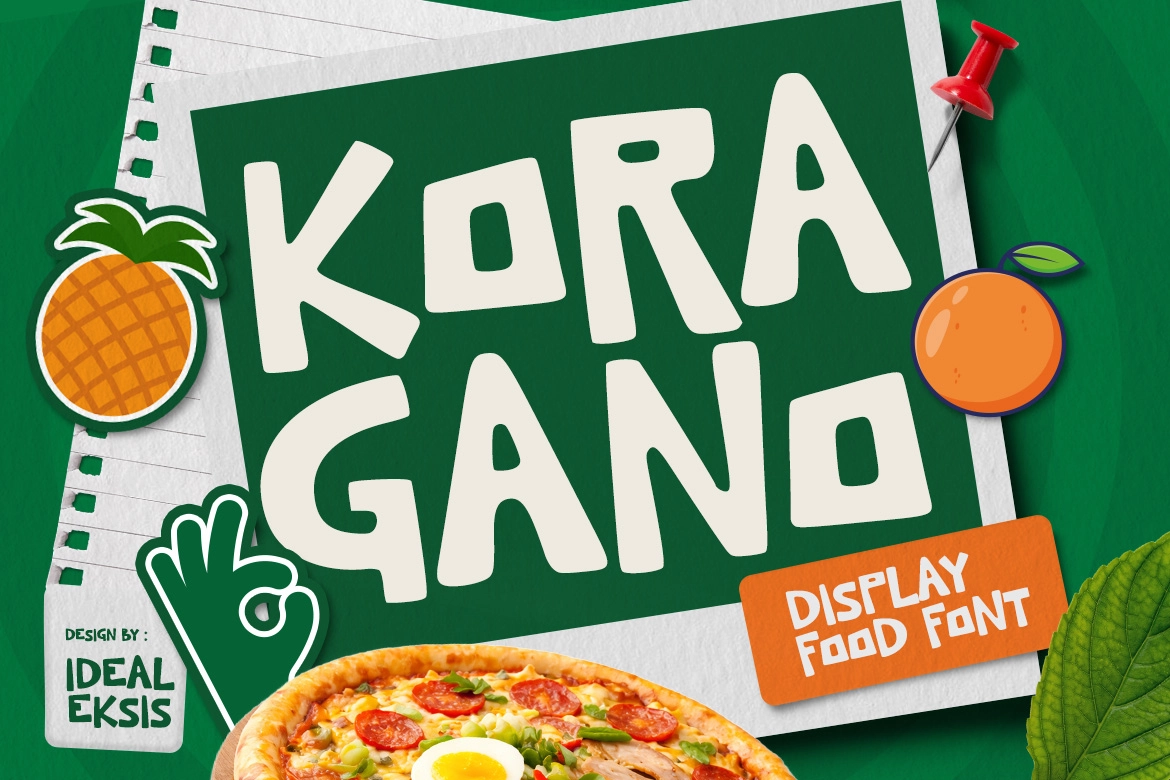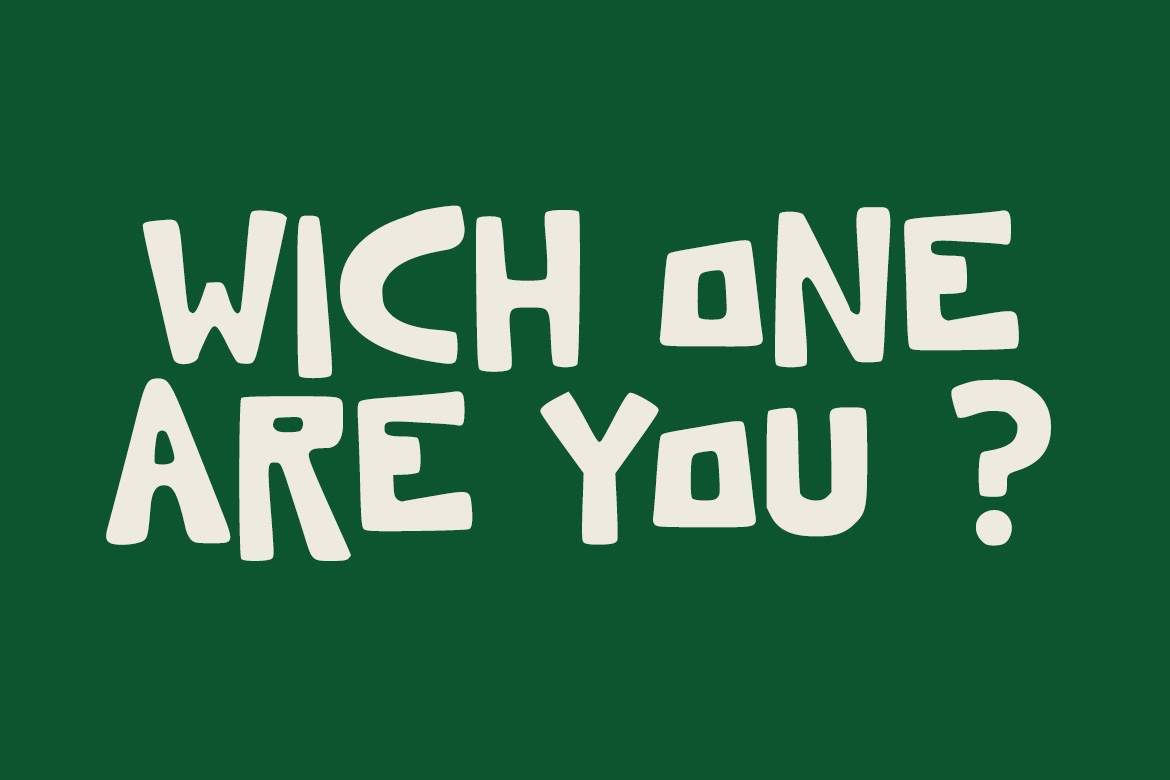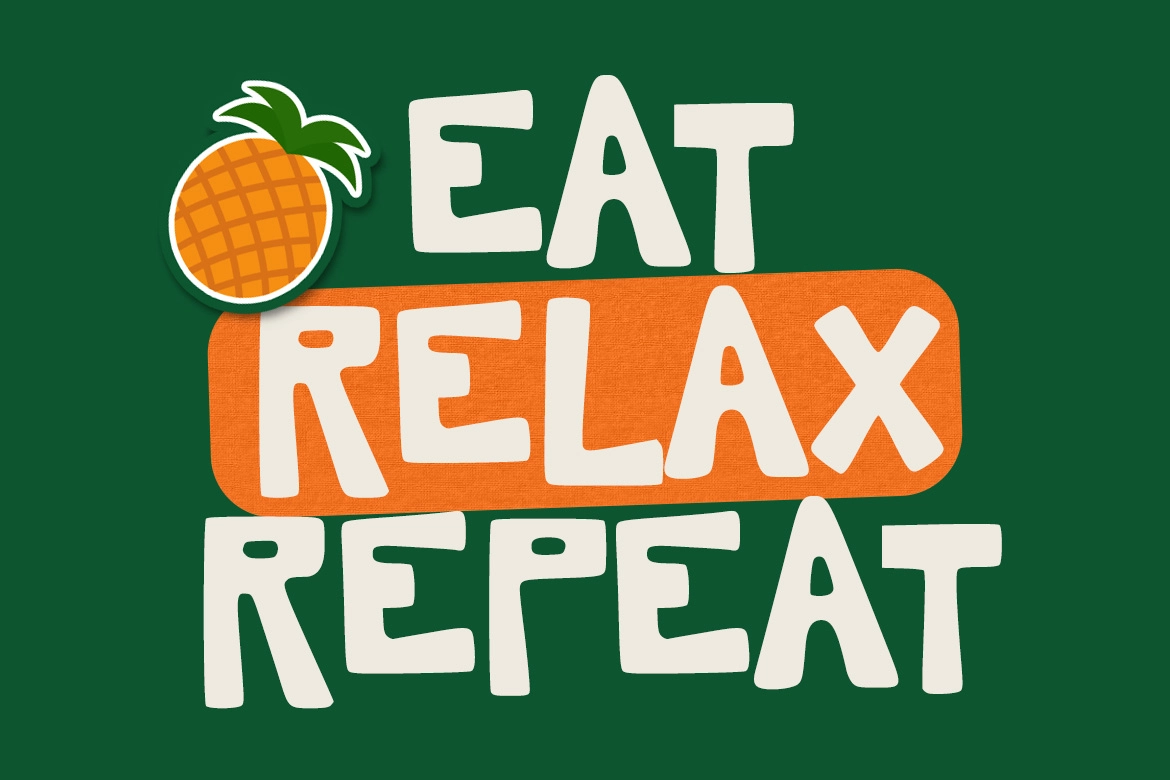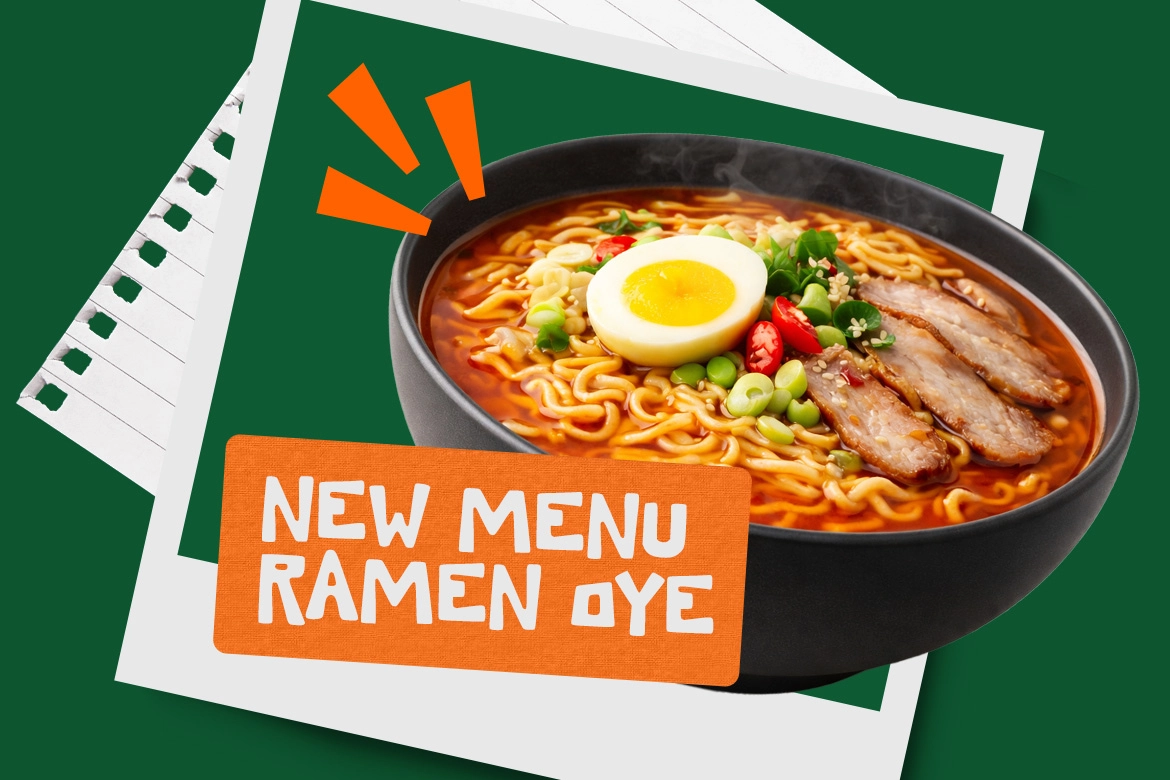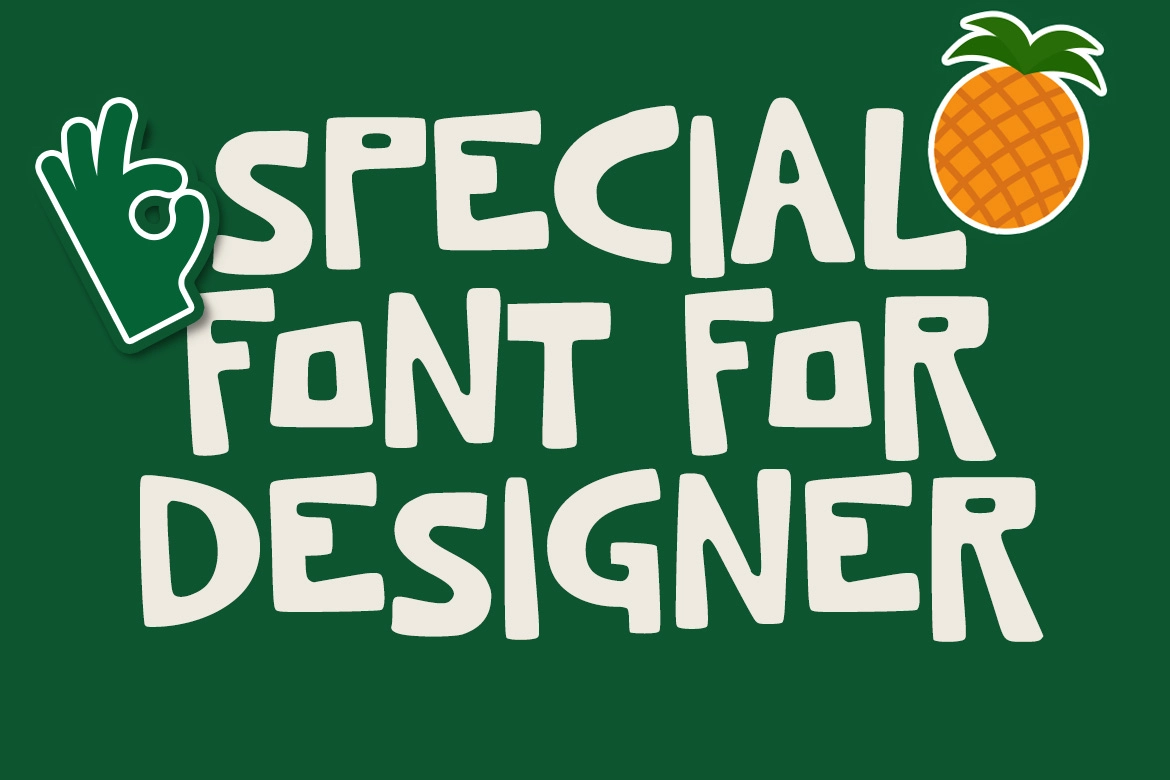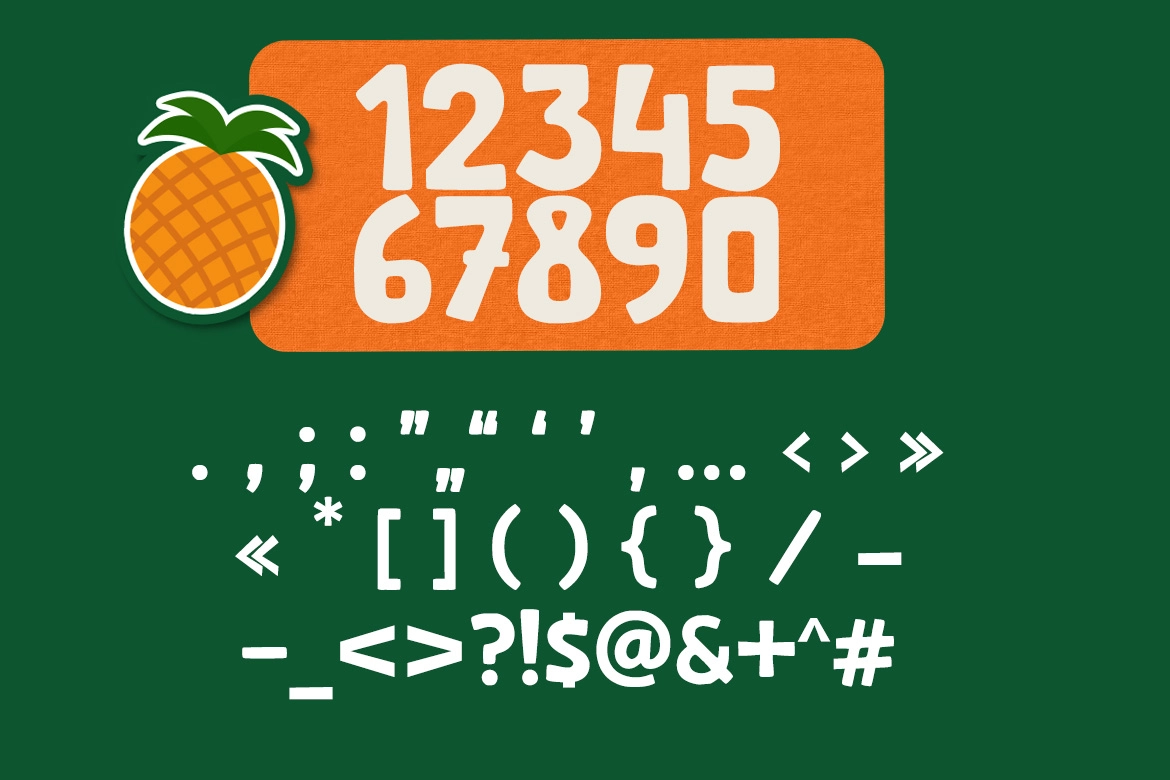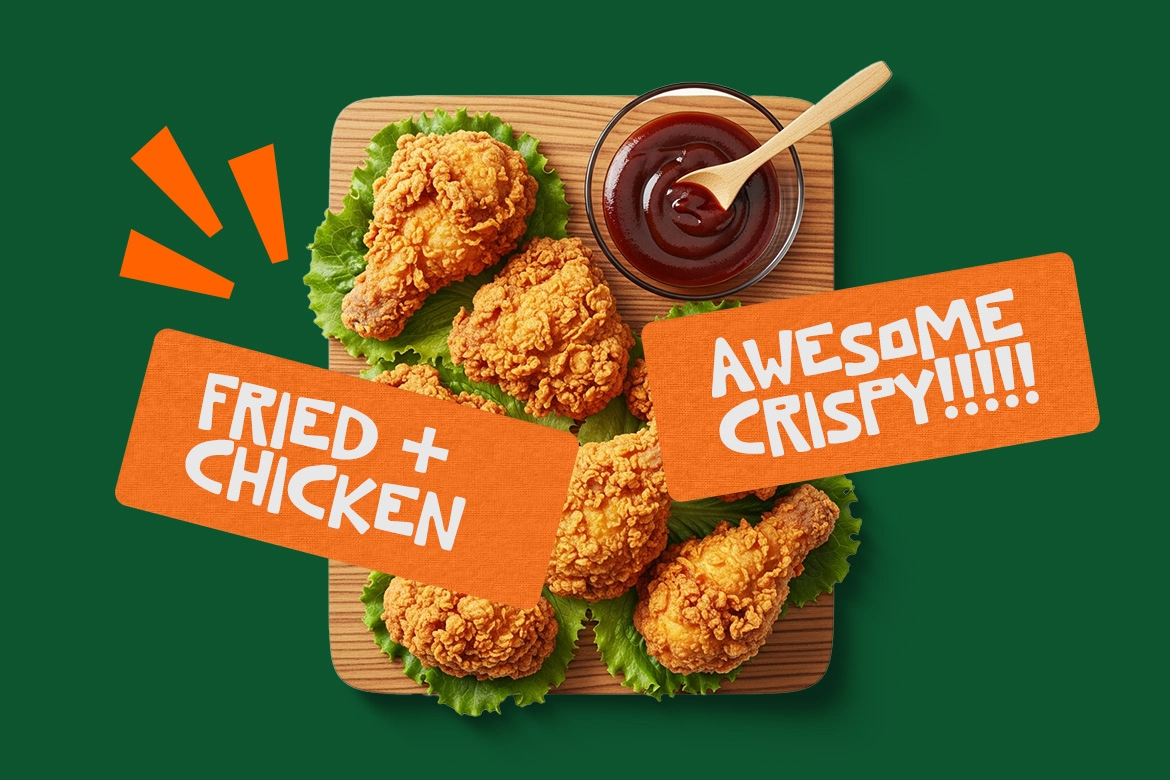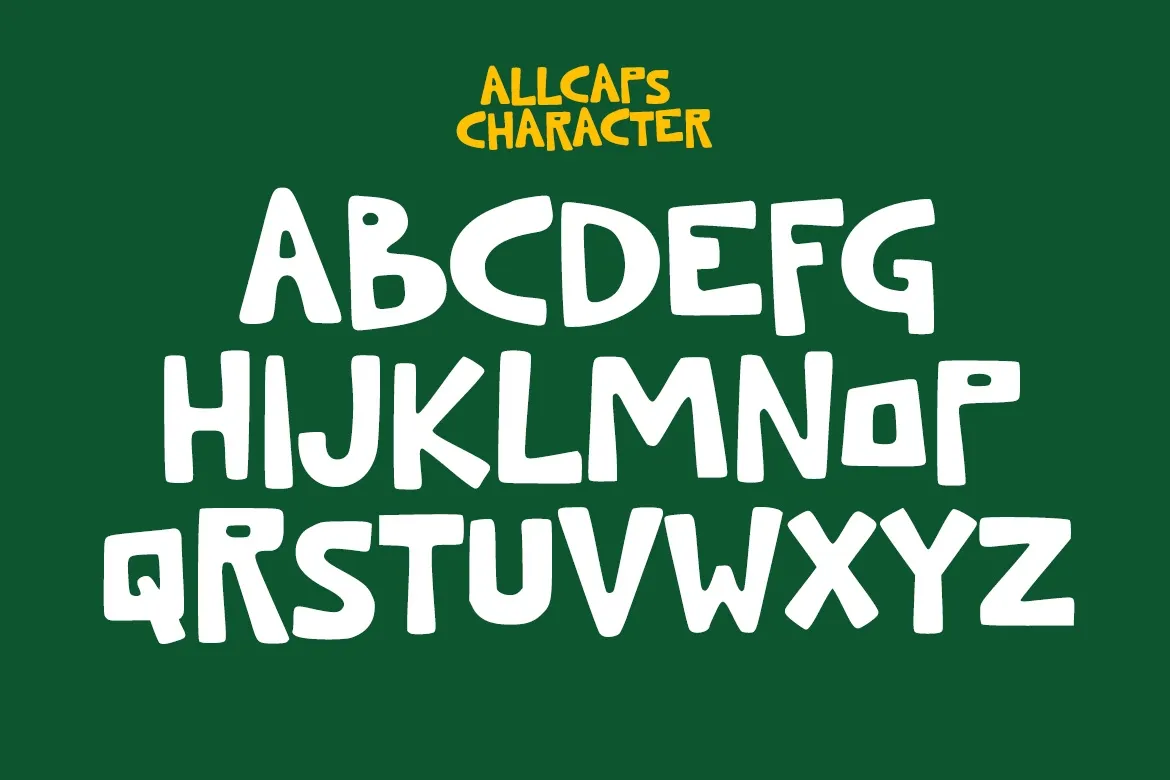
Kora Gano - Cute Display Font
Kora Gano - Cute Display Font is a playful and quirky typeface designed to bring warmth, charm, and personality into your creative projects. With its bold rounded shapes and slightly irregular letterforms, it captures the essence of hand-drawn cartoon style while maintaining a clean and friendly look.
Each character is crafted with soft edges and a lively rhythm, creating a fun and approachable visual tone. The uneven baseline and organic structure give the font a natural, expressive feel that instantly stands out and adds character to any composition.
Perfect for designs that need a cheerful and inviting touch, Kora Gano works beautifully across children’s content, food branding, posters, and social media graphics. Its whimsical style makes it especially effective for projects that aim to feel fun, lighthearted, and memorable.
• Uppercase (All Caps)
• Numbers & Punctuation
• Cute Rounded Display Style